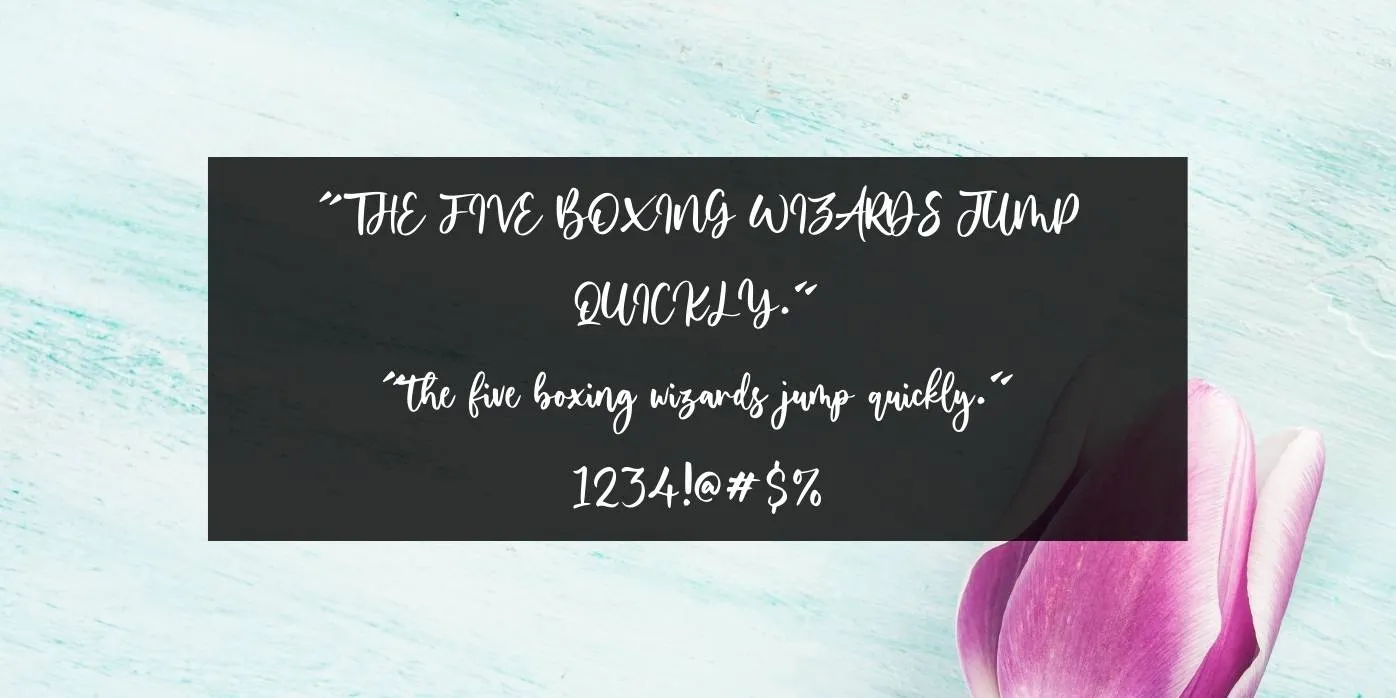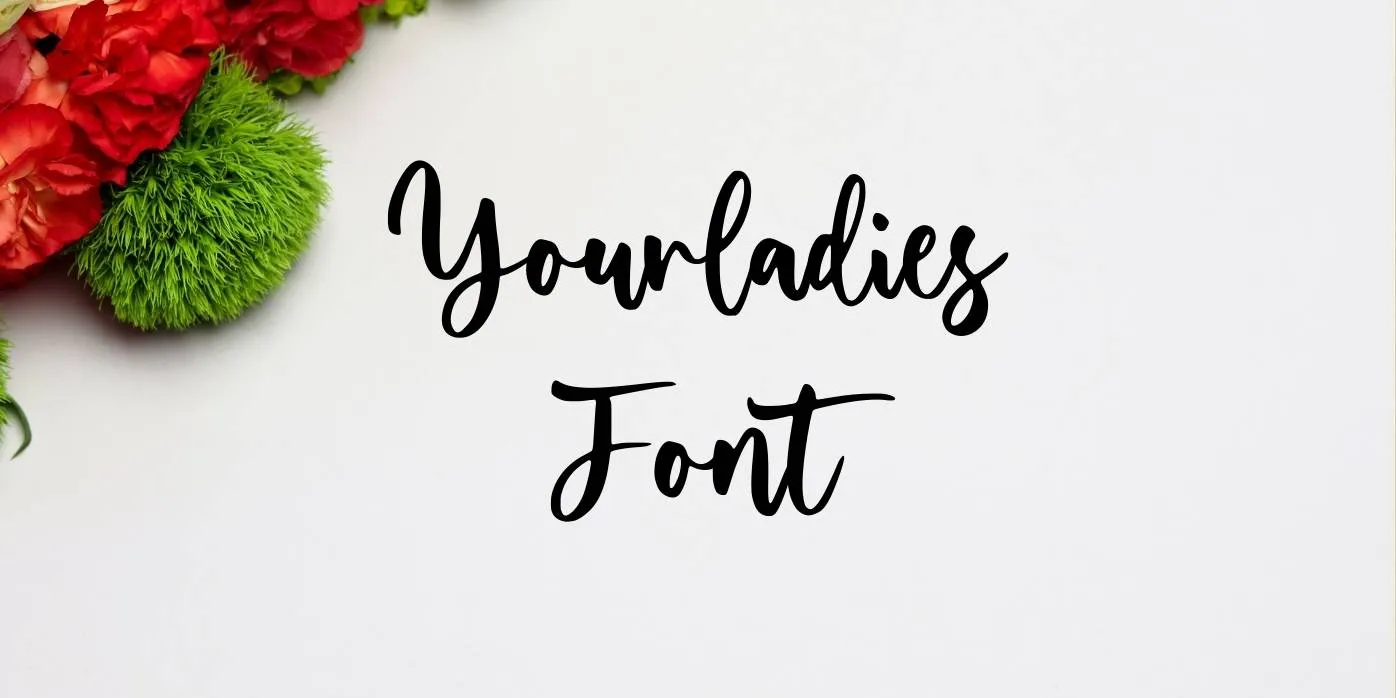
Yourladies Font
Yourladies Font is a classic typeface that belongs to the Script font family. This awesome typeface was designed by balpirick. The designer has given it a hand-drawn look to make it appear more natural and organic. The strokes of this typeface are rather thin, which gives it a light and airy feel.
This makes Yourladies Font ideal for use in designs that require a delicate touch, such as wedding invitations or other forms of formal stationery. Its copy and paste function is best for many designs. You can also use eccentric font which is closest to this font family. If you’re looking for a classic yet stylish script font, then Yourladies Font is definitely worth checking out.